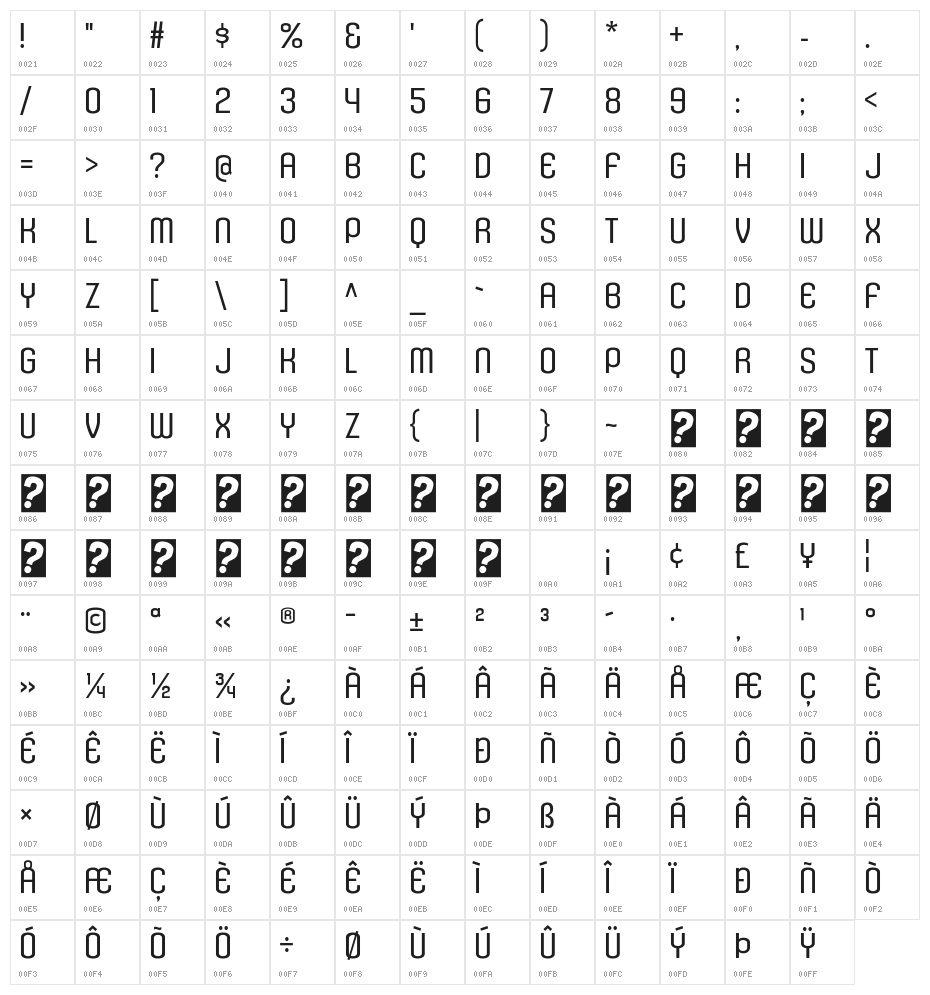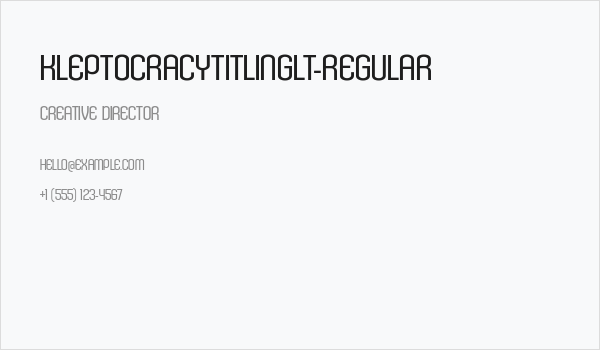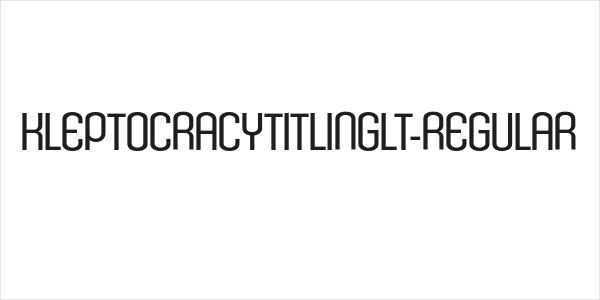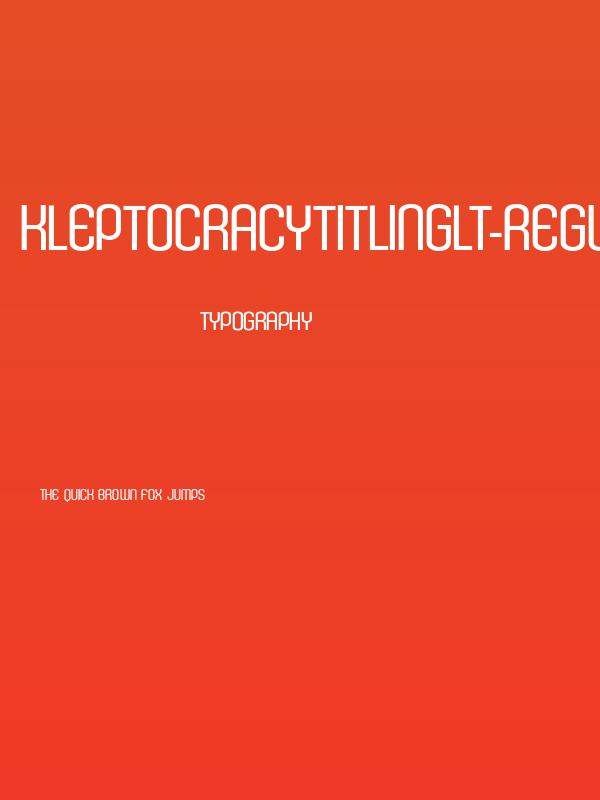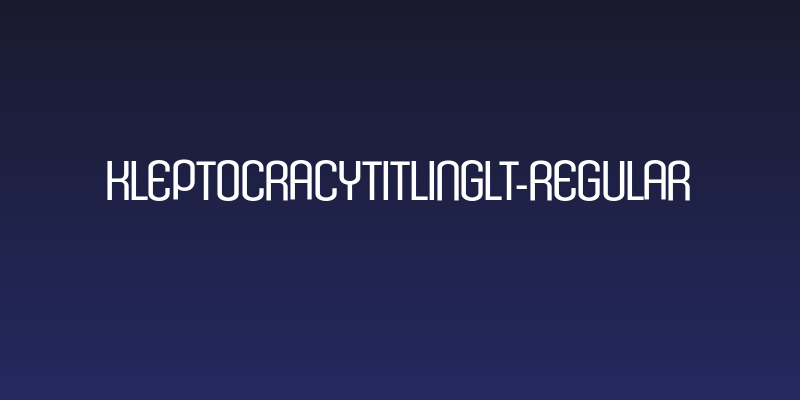
KleptocracyTitlingLt-Regular Font
KleptocracyTitlingLt-Regular Description
This font features a modern and geometric design, characterized by its clean lines and uniform stroke width. The uppercase and lowercase letters exhibit a consistent height, contributing to a balanced and harmonious appearance. The numerals and special characters maintain the same geometric style, ensuring a cohesive look across all text elements. The font's structure is straightforward, with minimal embellishments, making it suitable for a variety of design applications. Its clarity and simplicity make it an excellent choice for projects that require a modern and professional aesthetic.
| Proposed Projects | Ideal for branding, editorial design, advertising, and digital interfaces. |